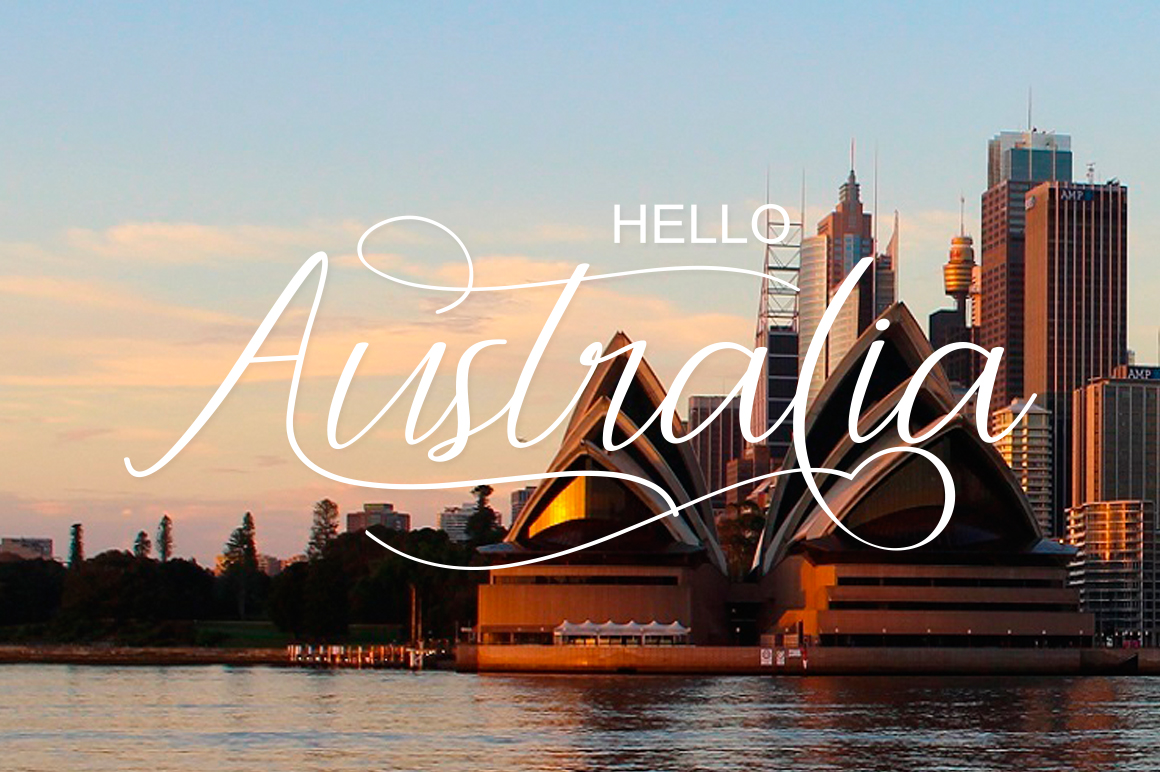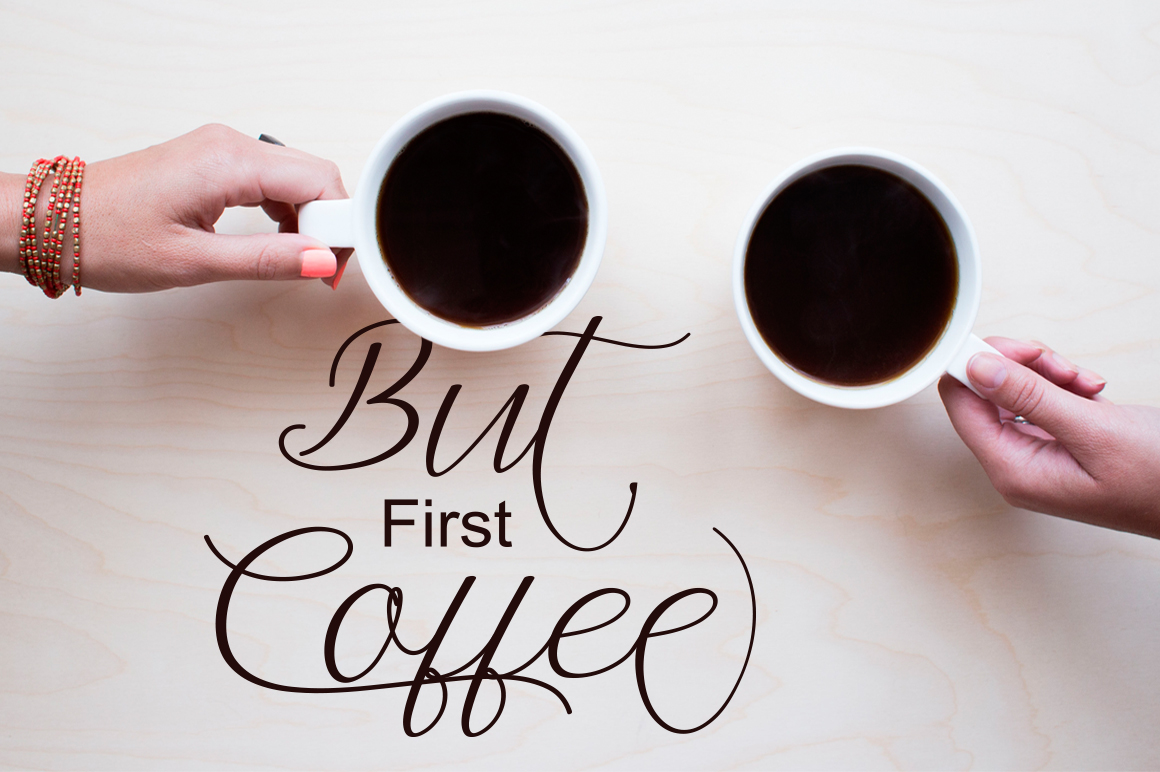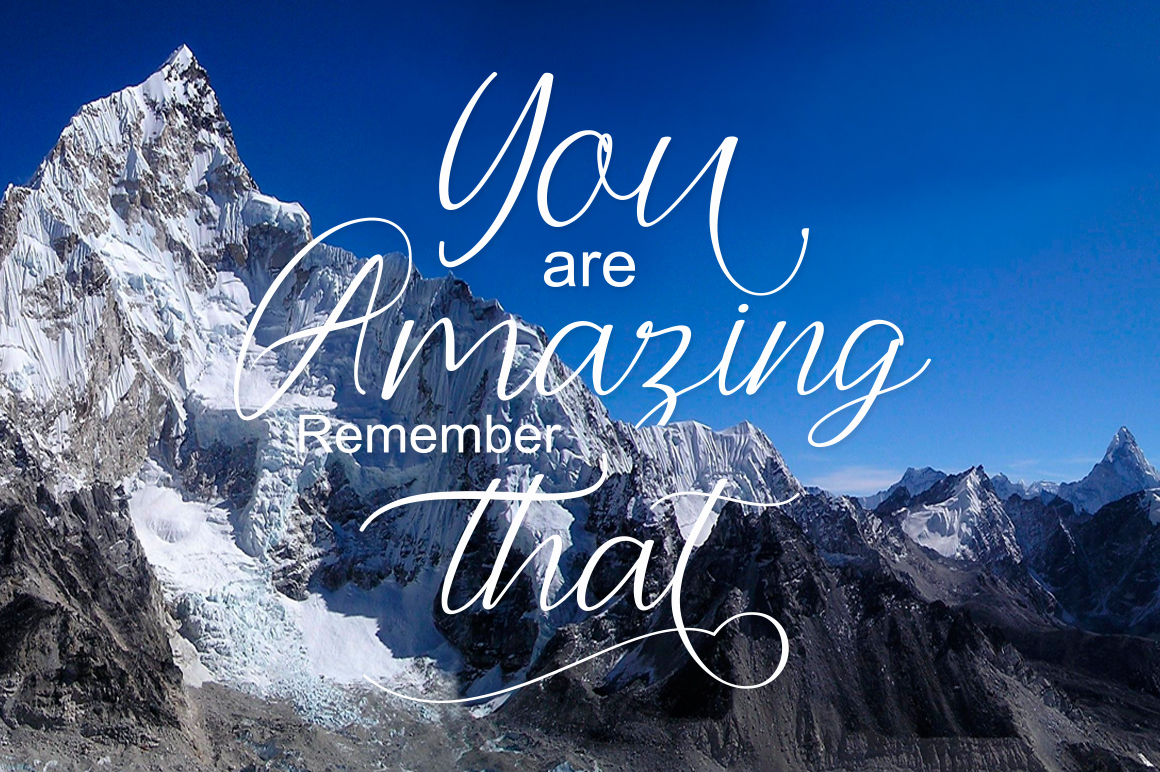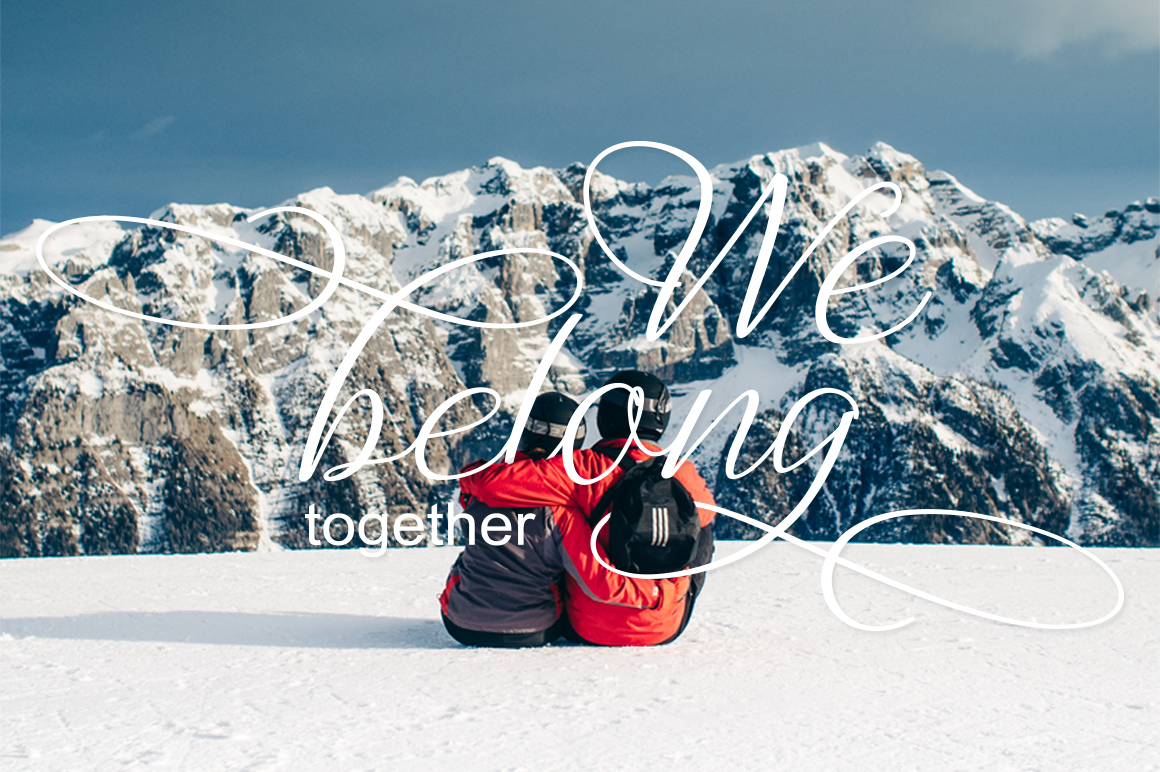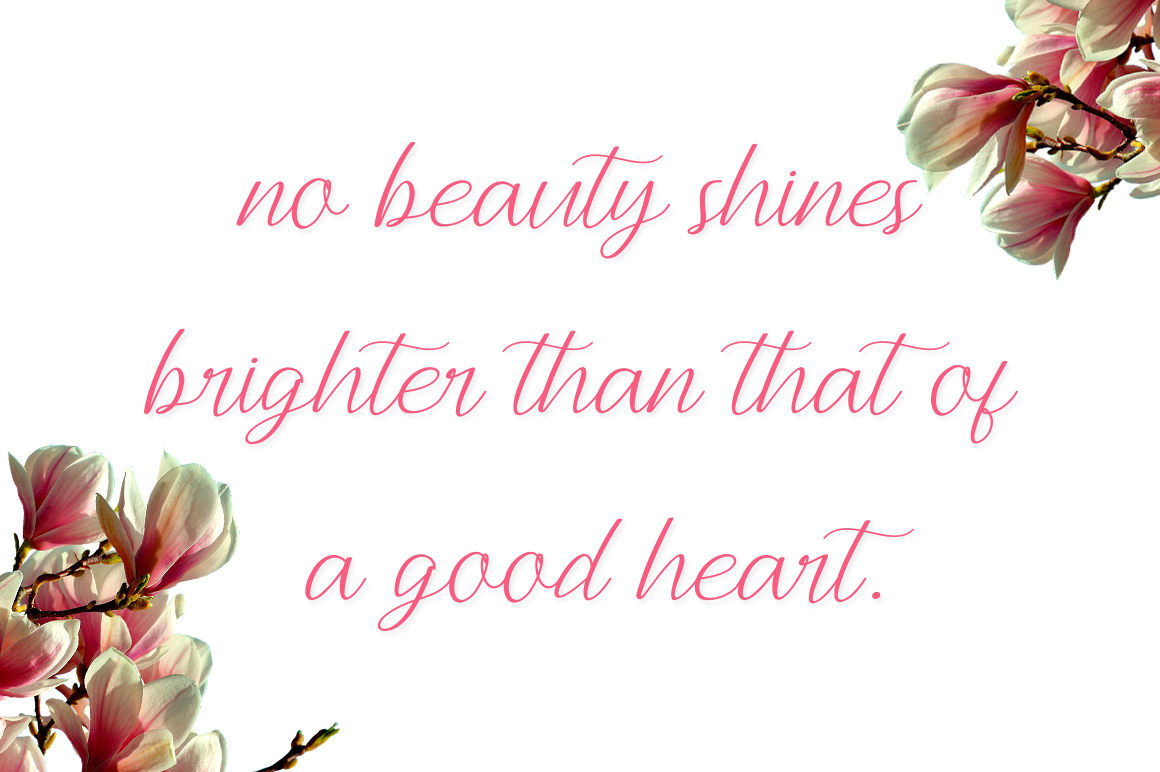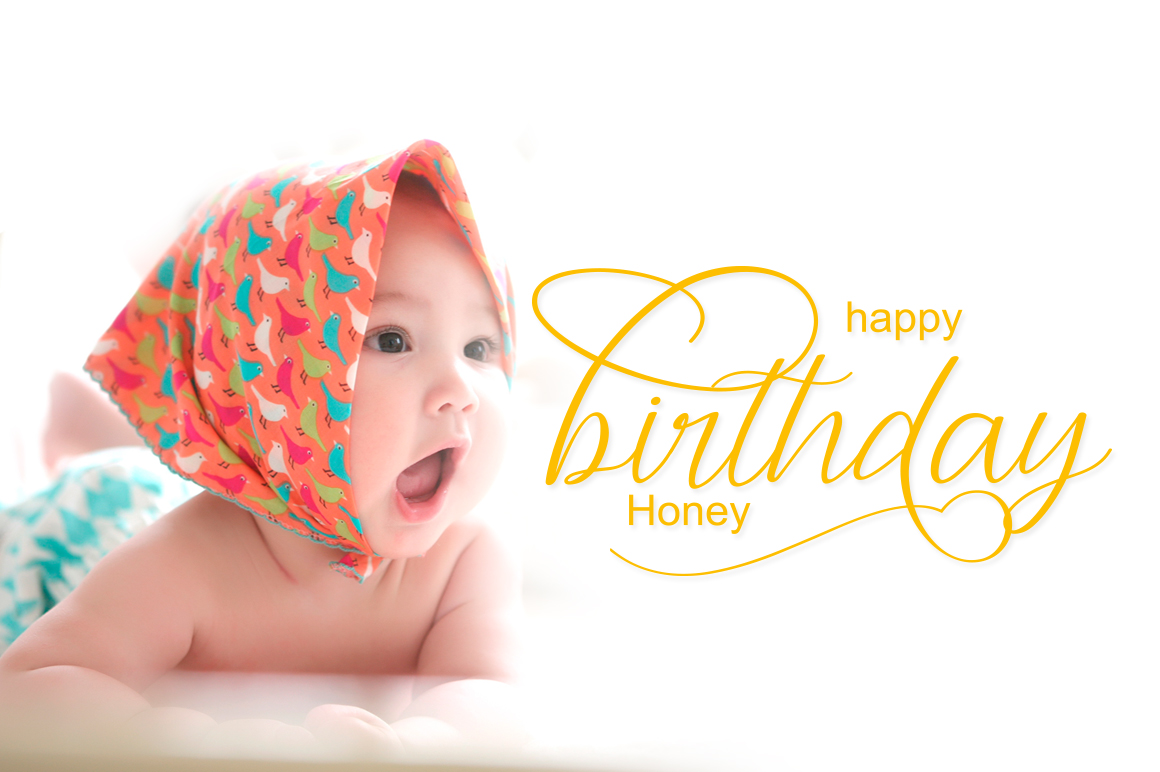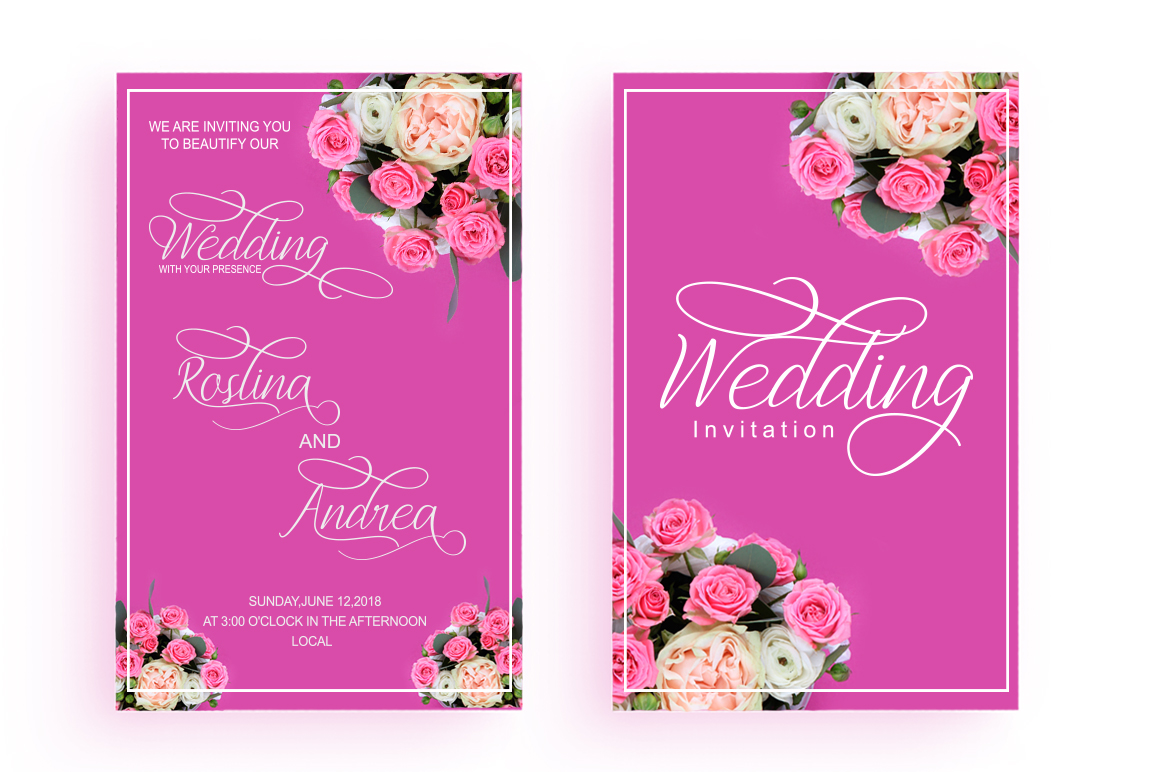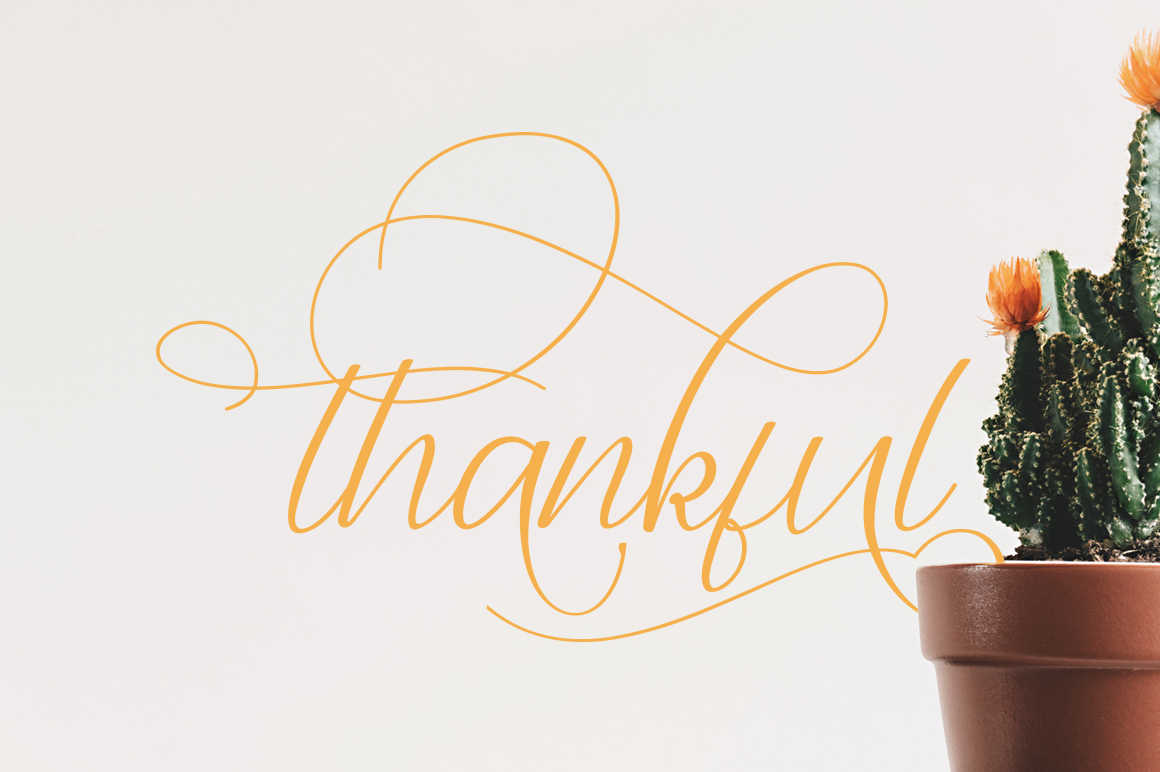
Andella Script Font
Andella Script is a stunning modern handmade font with a calligraphic style. It’s packed with stunning swashes.
The font is completely drawn by hand and digitally perfected.